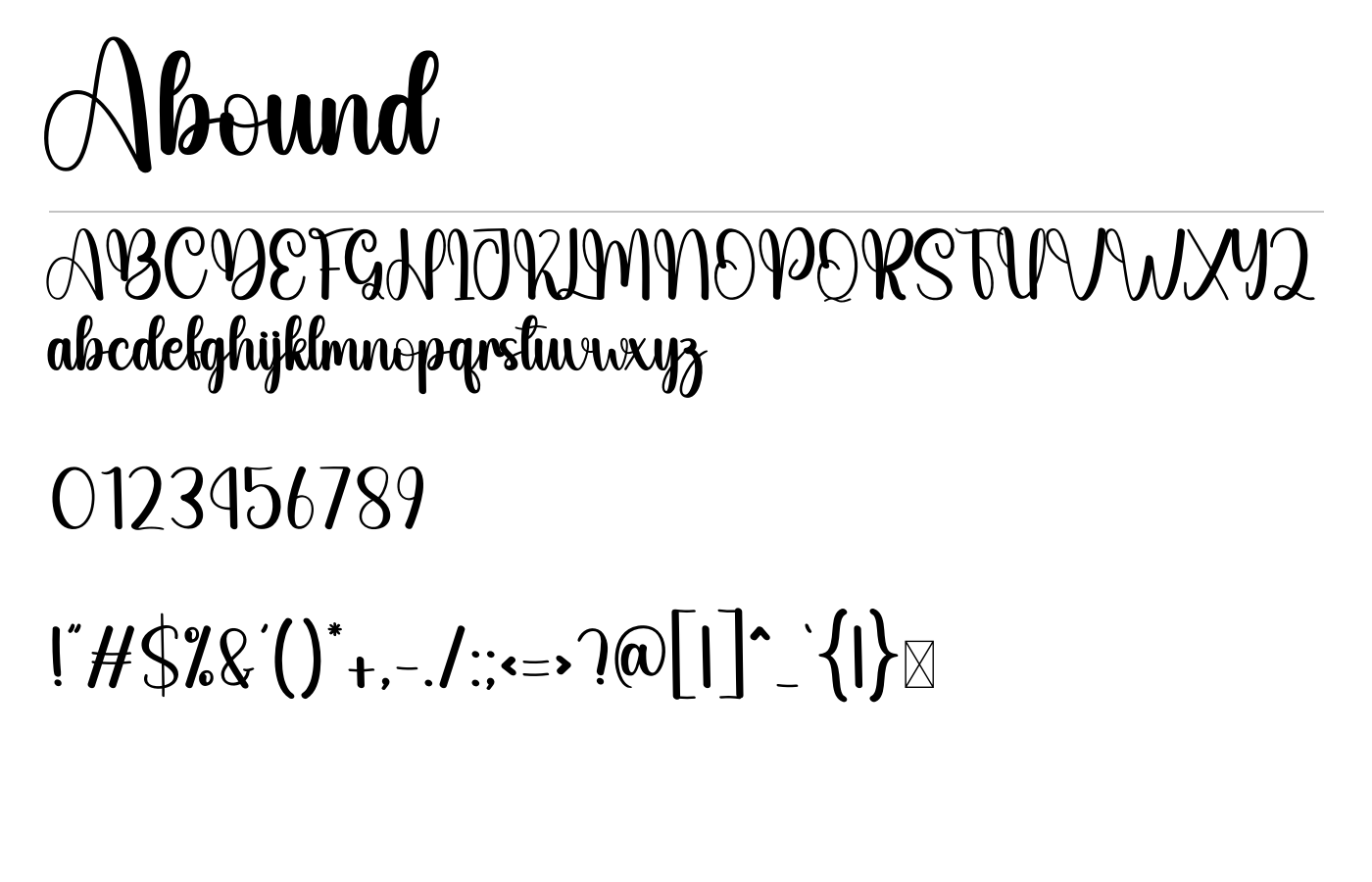
Abound is a playful and elegant script font featuring a lively, hand-drawn style with flowing, rounded strokes and distinctive letterforms that add personality and charm. Its medium weight and varying stroke widths create a friendly and approachable feel, making it perfect for branding, invitations, or creative projects seeking a warm and expressive touch. This font shines in display use where its unique character can truly stand out.
Abound Font